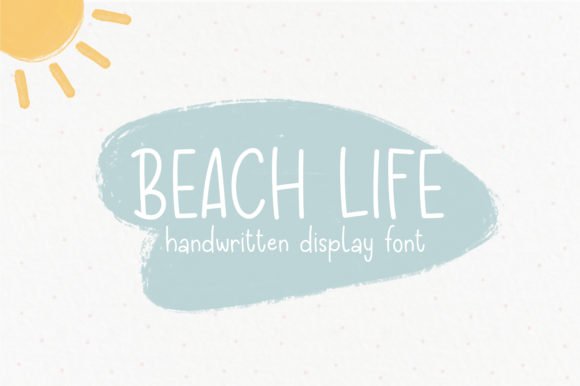
Find Your Coastal Inspiration with Beach Life Font
Do you remember the feeling of walking along the beach, feeling the warm sand between your toes and the salty breeze in your hair? It’s those moments that spark our creativity and inspire us to bring the beauty of nature into our designs. For designers looking for a font that captures the carefree spirit of the coast, Beach Life Font is the perfect choice.
This sweet and simple handwritten font is designed to evoke the feeling of a seaside escape. With its natural and unique style, Beach Life Font is incredibly versatile and can be used in a wide range of designs, from beach-themed posters to summer-inspired social media graphics. Whether you’re a seasoned designer or just starting out, Beach Life Font is a valuable tool to add to your creative arsenal.
Beach Life Font Key Features
- Font Family: Beach Life Font is a unique, hand-drawn font designed to evoke the feeling of a beachside getaway.
- Character Count: The font contains over 400 characters, including uppercase and lowercase letters, numbers, punctuation marks, and special characters.
- Unique Characteristics: Beach Life Font features a relaxed, casual feel with subtle imperfections and texture, giving it a warm and inviting appearance.
Beach Life Font Review
Overall, I think the Beach Life Font is a charming addition to any design project. ✨ It has a laid-back, summer vibe that immediately transports you to the beach. The script-like font with rounded edges and subtle waves creates a unique and eye-catching effect.
The font is perfect for creating a carefree, tropical atmosphere in branding, advertising, or even web design. The high-resolution design ensures crisp, clear rendering in various sizes and formats.
- Unique, beach-inspired design that stands out from more common fonts
- High-resolution design for clear rendering
- Works well in various design projects, from branding to advertising
Limitsations:
The font has some limitations that designers should be aware of. ⚠️ The Beach Life Font can be quite busy, making it challenging to read in smaller sizes or with extensive text. Additionally, it may not be suitable for formal or professional projects where a more conservative font is preferred.
Despite these limitations, I still think the Beach Life Font is a great addition to any designer’s toolkit. Its unique design and laid-back vibe make it a perfect choice for projects that require a fun and carefree atmosphere.
Tip: Use the Beach Life font to add a tropical feel to your beach-themed designs.
Tip: Use the Beach Life font to create custom watermarks or logos for your beach-themed designs.
Tip: Use the Beach Life font to add a beachy feel to your presentations or documents.
The Beach Life font is perfect for:
- Beach-themed designs, such as beach towels, t-shirts, and posters.
- Tropical vacation packages, travel brochures, and website designs.
- Summer-themed social media graphics and advertisements.
Alternatives to Beach Life Font
Lobster Font is a cursive font that is perfect for creating a relaxed, beachy vibe. It’s ideal for headings and titles that need to stand out from the rest. Lobster Font is more playful and whimsical compared to Beach Life Font, which is more elegant and sophisticated. Use Lobster Font when you want to add a touch of fun and personality to your design.
Aleo Font
Aleo Font is a modern sans-serif font that is great for creating a clean and minimalistic design. It’s perfect for body text and is highly legible, making it easy to read. Aleo Font is more versatile compared to Beach Life Font, which is more suited for formal and elegant designs. Use Aleo Font when you want to create a sleek and sophisticated design that still conveys a sense of relaxation.